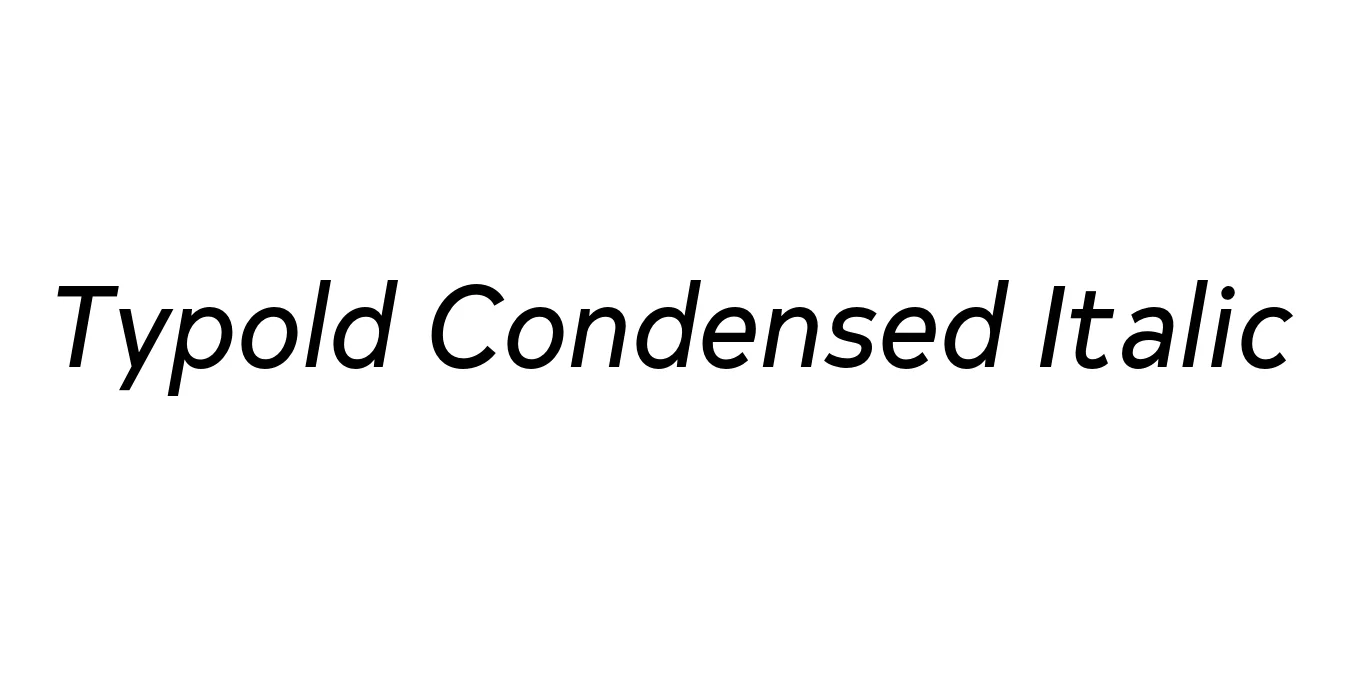
Typold Condensed Italic
Designed by Jonathan Hill
Typold Condensed Italic is a part of the expansive Typold family, a modern geometric sans-serif designed by Jonathan Hill for the foundry The Northern Block. This specific variant focuses on efficiency and precision, offering a slender profile that excels in space-constrained layouts while maintaining excellent legibility. The italic slant is carefully engineered to provide a sense of momentum and dynamism without sacrificing the structural integrity of its geometric roots, making it a versatile tool for contemporary designers.
Developed as a high-performance solution for both digital and print media, Typold represents a refinement of the classic geometric style through mathematical precision. It incorporates subtle adjustments to ensure that the condensed forms do not feel cramped or illegible at smaller sizes. This typeface is particularly effective for editorial design, high-tech branding, and information-dense interfaces where every pixel or millimeter of space is crucial for visual hierarchy.
Typold Condensed Italic Best Uses
Perfect for magazine headings and sidebars where horizontal space is limited.
Ideal for tech-focused corporate identities looking for a precise, engineered look.
Great for dense data dashboards and mobile application interfaces that require high legibility.
Excellent for punchy taglines and impactful messaging in narrow advertising banners.